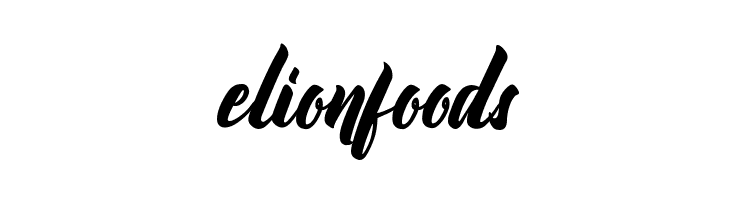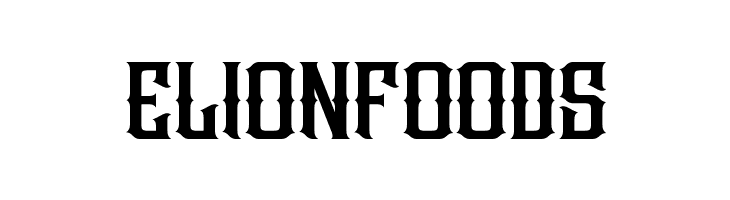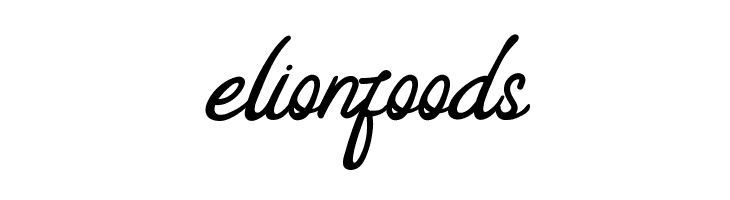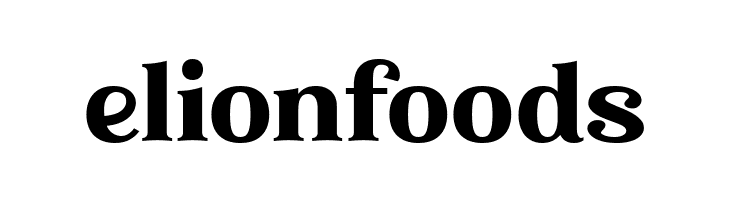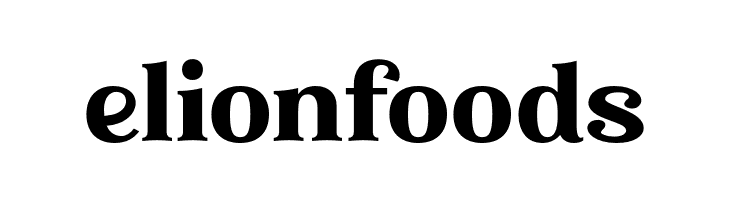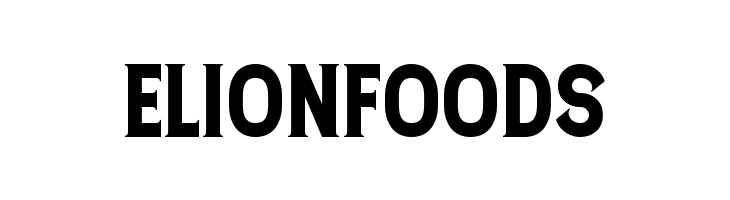
• Bethany Kibang
A bold, dynamic script font with fluid, cursive strokes and elegant swashes.
• Wazintte
A bold, Gothic-inspired font with sharp, angular edges and a medieval feel.
• Feny Anjany
A dynamic and elegant cursive script font with flowing letterforms.
• Belfina Husairy Regular
A sophisticated serif font with high contrast and elegant serifs.
• Rutmag Sugan Regular
A bold, dynamic font with sharp, angular edges and a striking appearance.
• Phoenix Ayash Regular
A classic serif font with bold strokes and high contrast, exuding authority and elegance.
• PhoenixAyash-Regular
A classic serif font with bold, elegant curves and a formal aesthetic.
• Partiny Agathi
An elegant script font with flowing, interconnected letters and artistic flair.
• Sarkowik
A bold, modern font with angular, condensed characters.
• Celline Fram
A dynamic, brush-style font with fluid strokes and artistic flair.